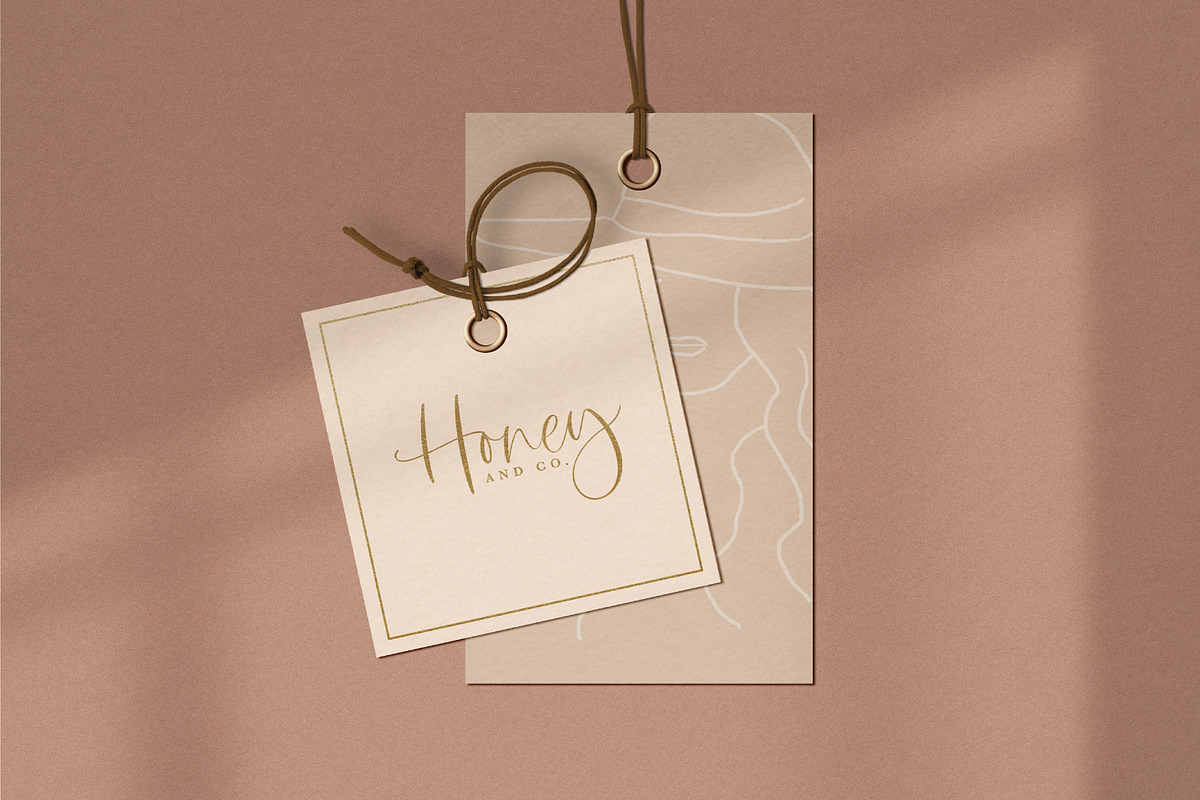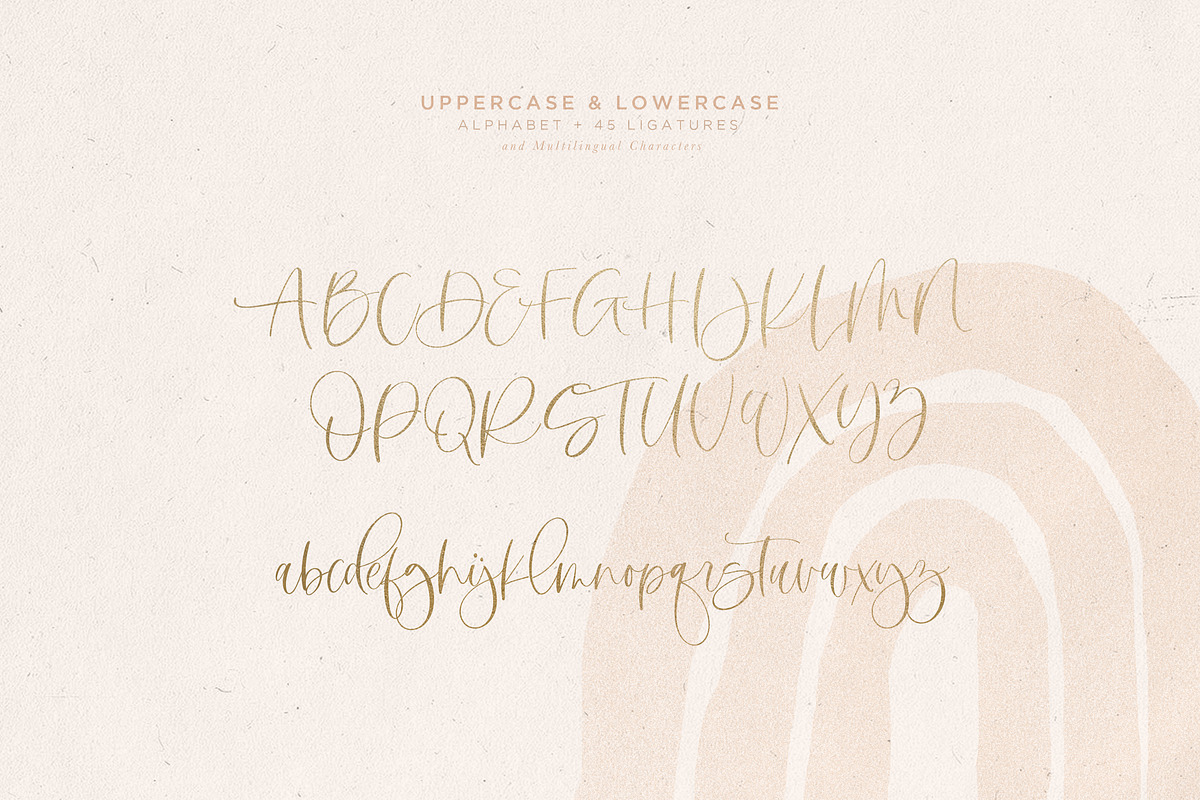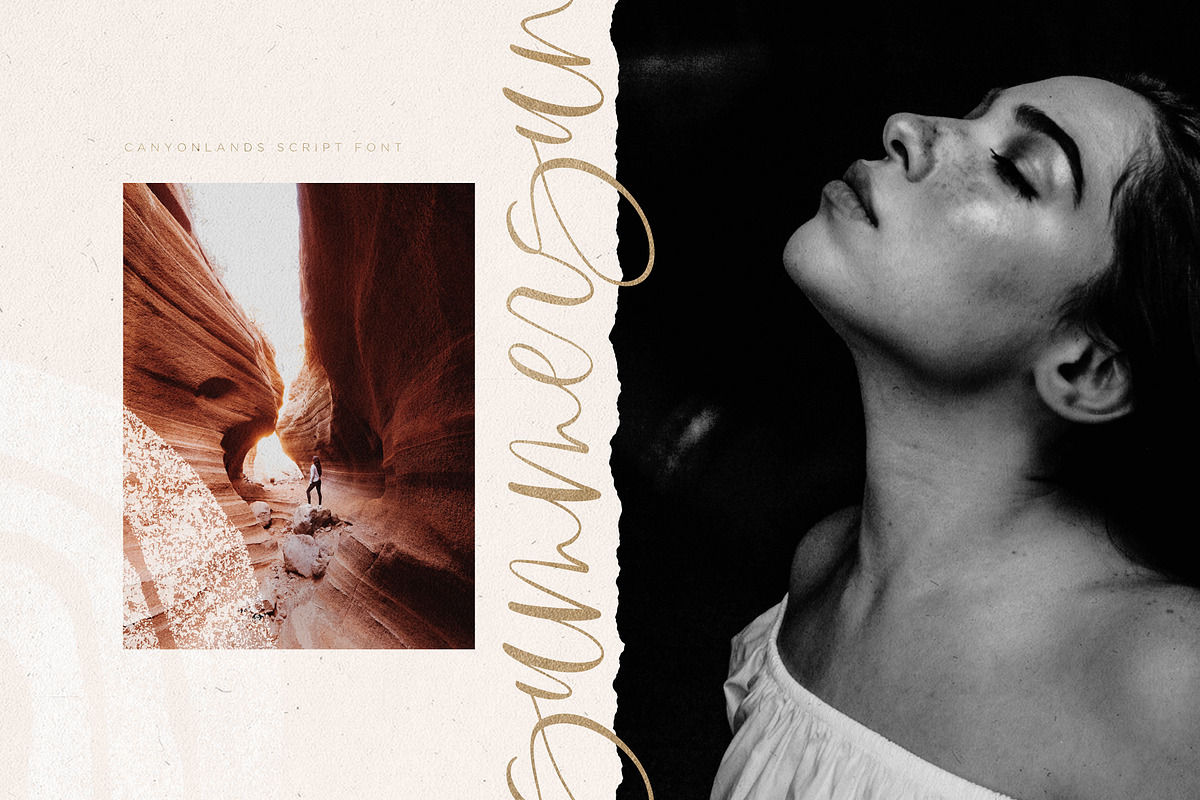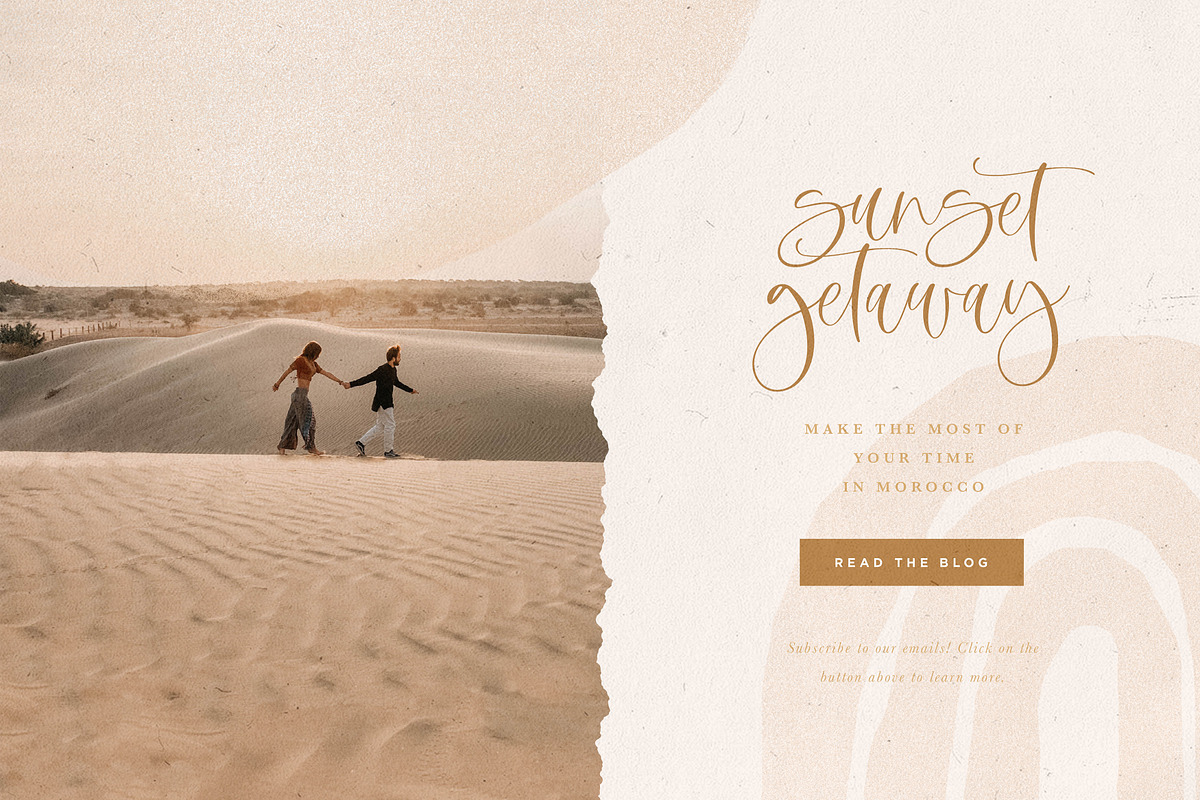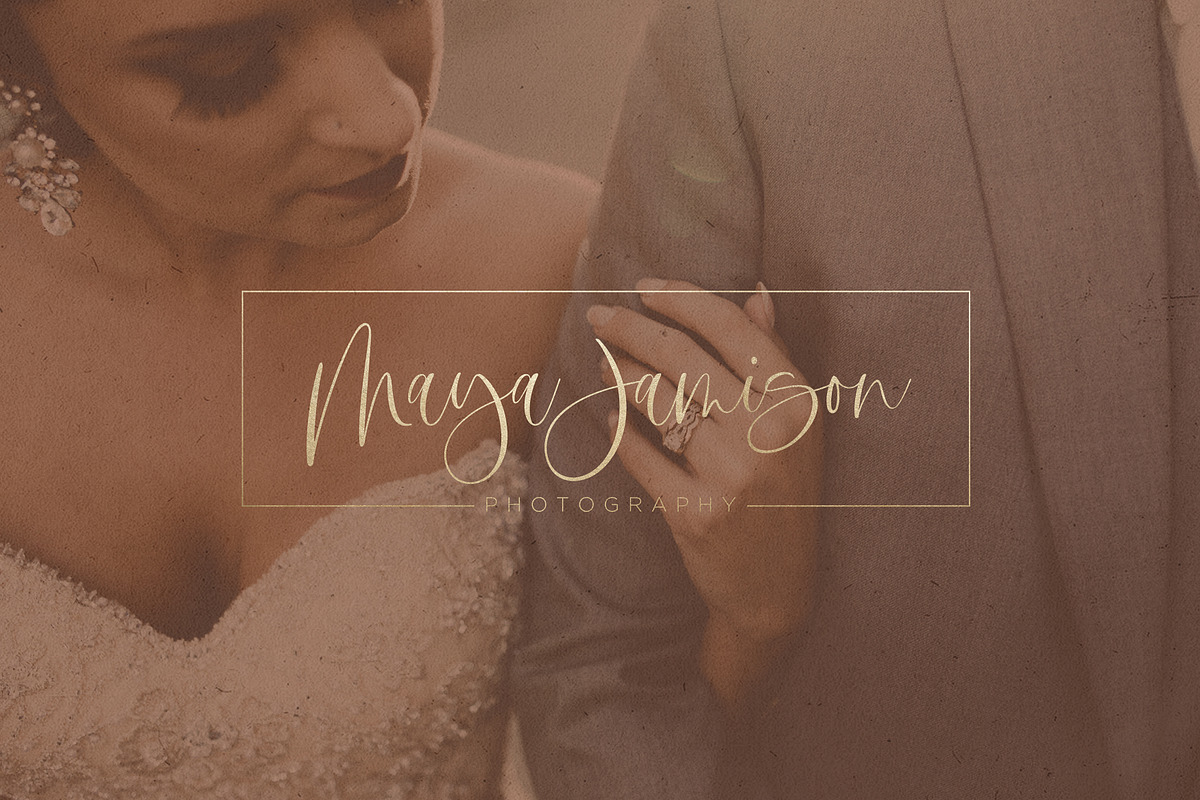
Canyonlands Font
Canyonlands is a casual-chic, hand-lettered script font. It is perfect for styling logos, stationery, social media, websites and so much more!
It was created with multilingual support and over 45 ligatures, allowing you to create a real hand-written look to your projects.
Canyonlands Script Font